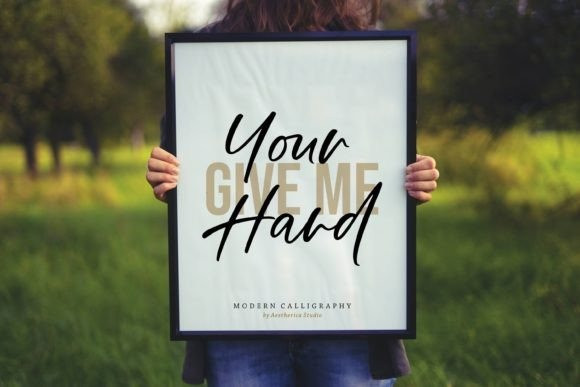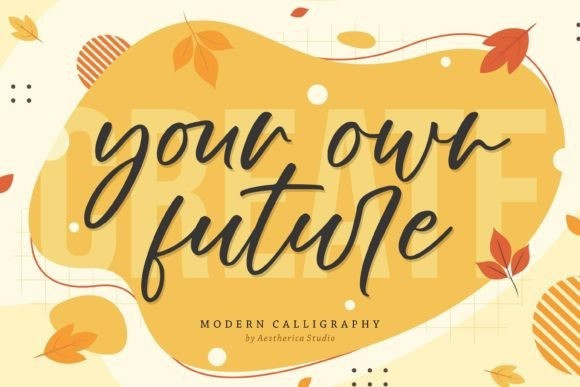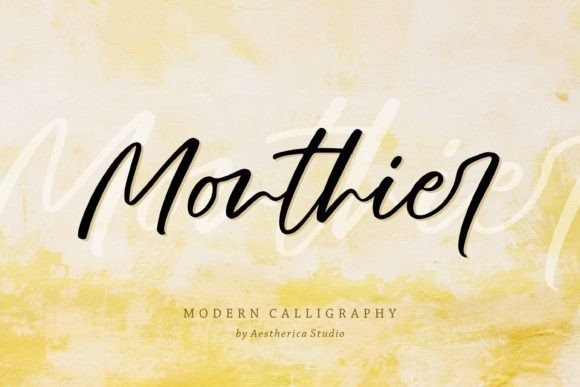
Monthier Script Font
Monthier Script Font, is a modern and original handwritten font perfect for branding projects, logos, wedding designs, social media posts, advertisements, product packaging, product designs, label, photography, watermark, invitation, stationery, and any projects that need handwriting taste.